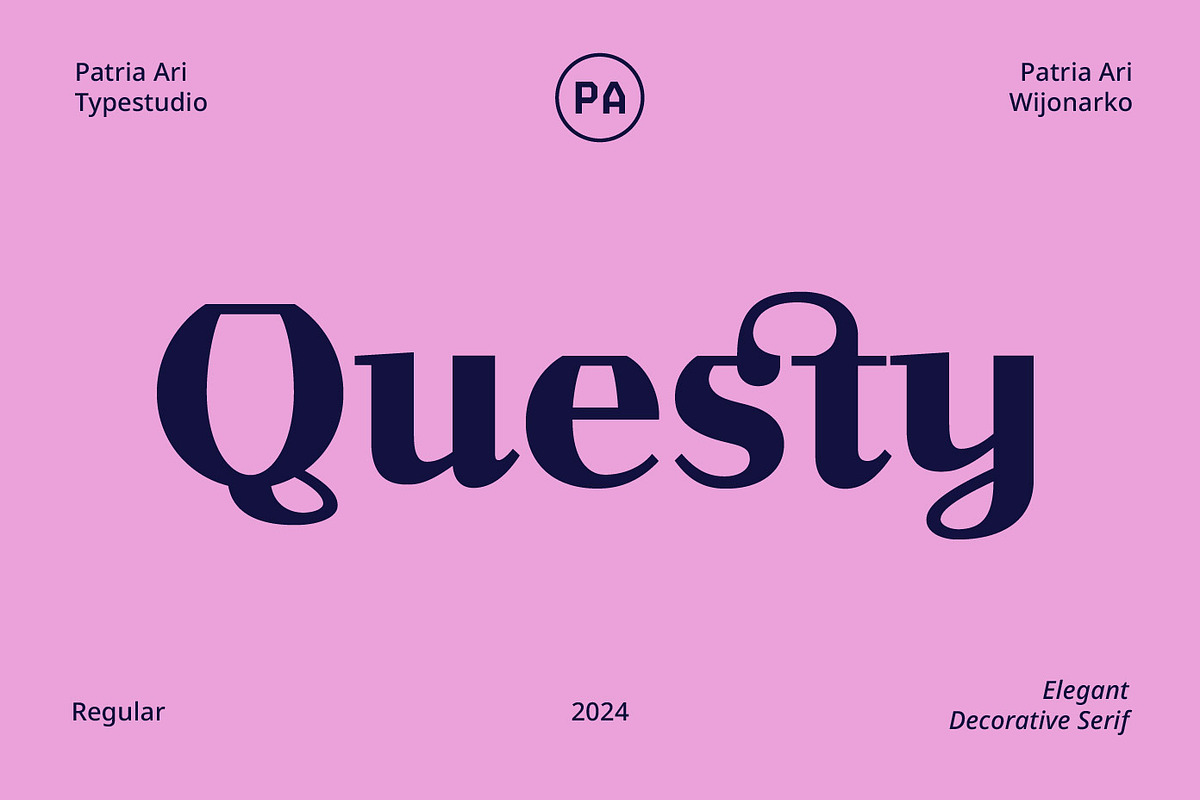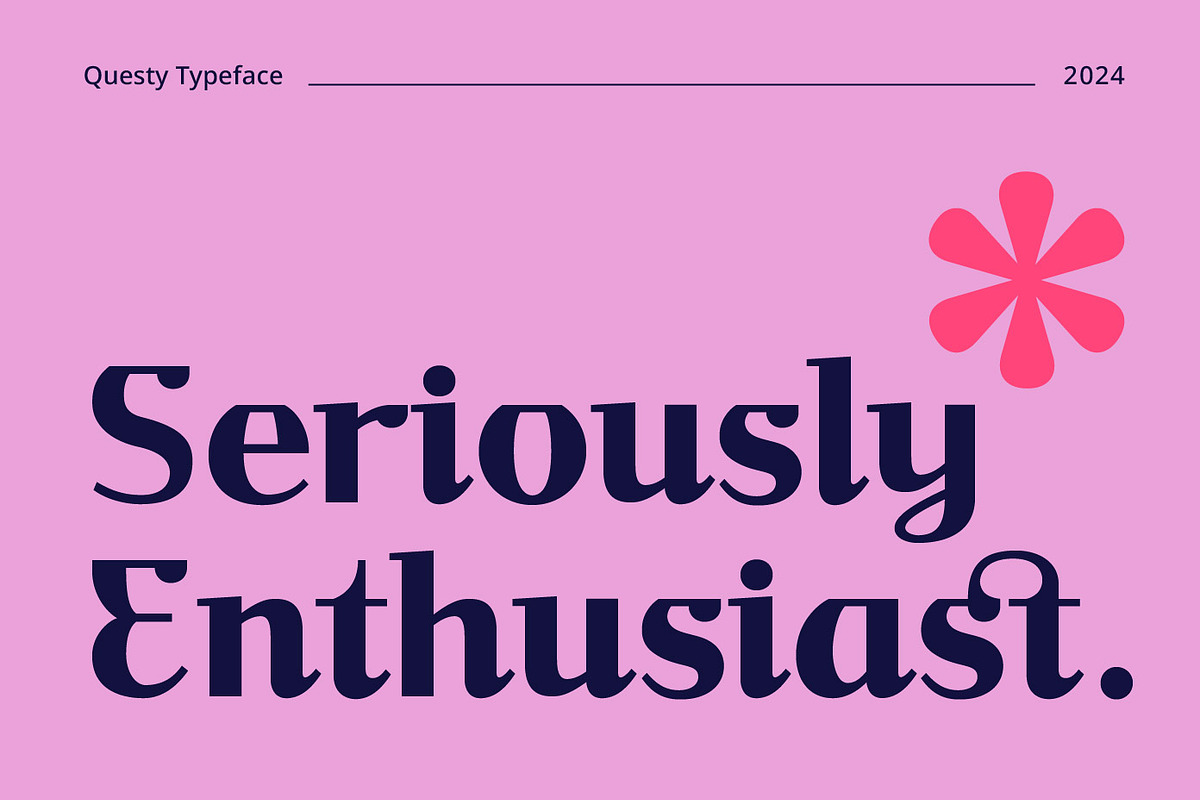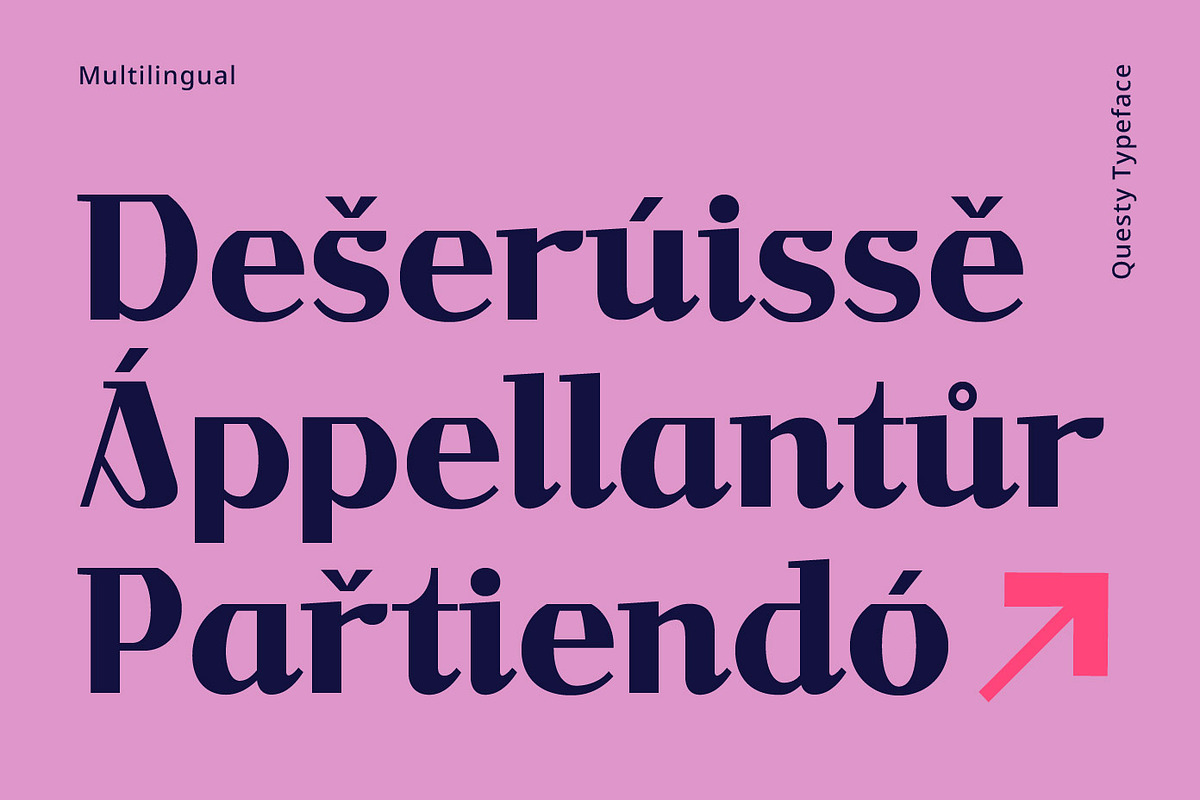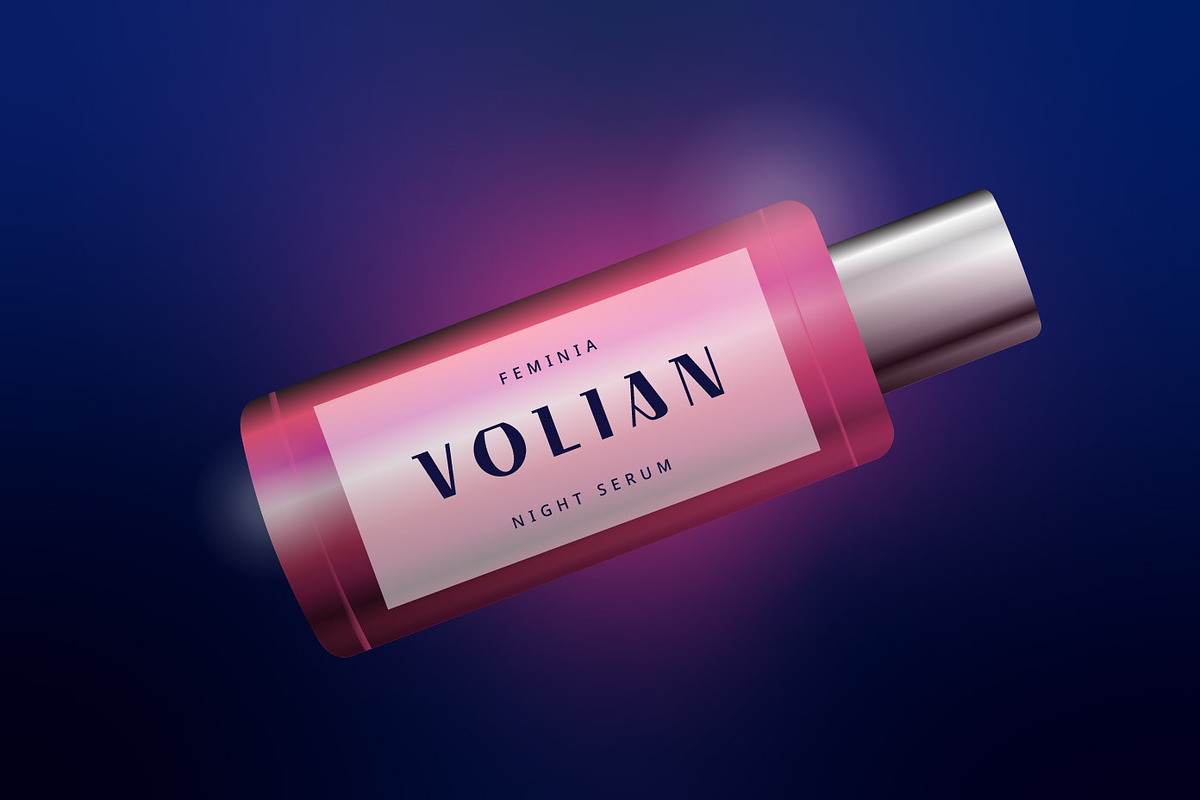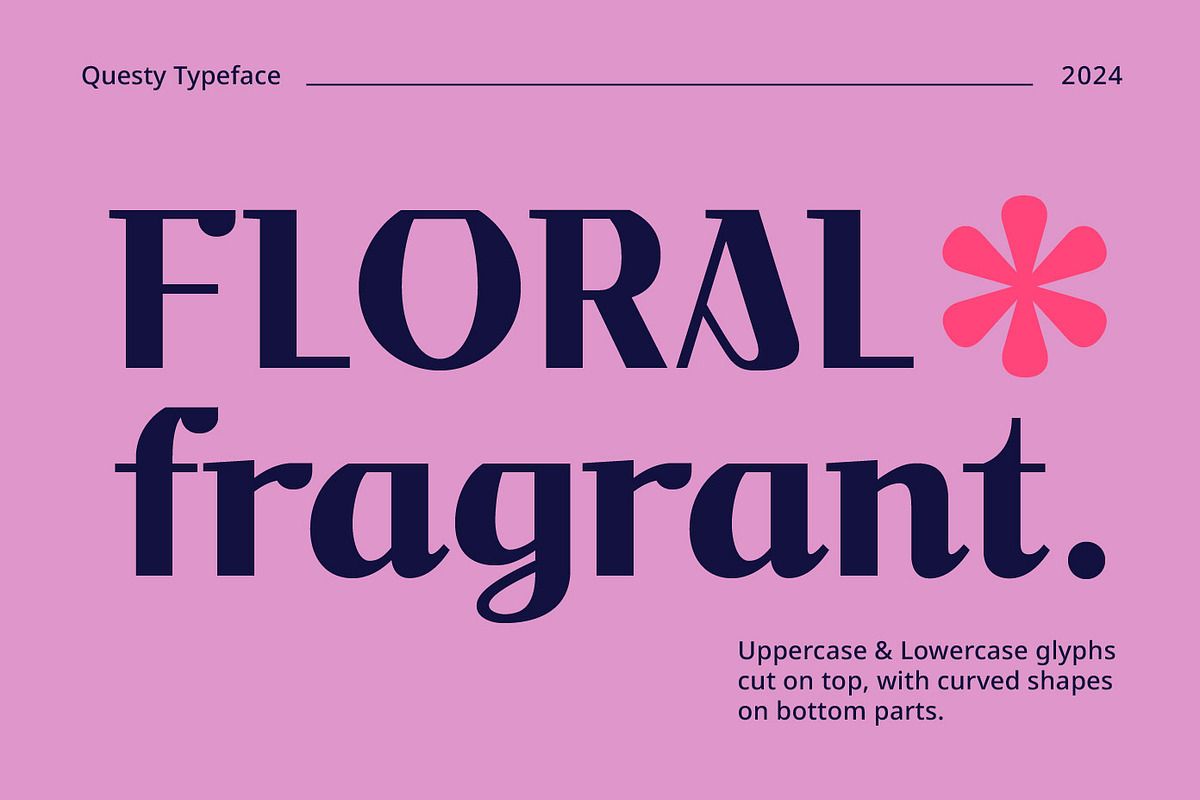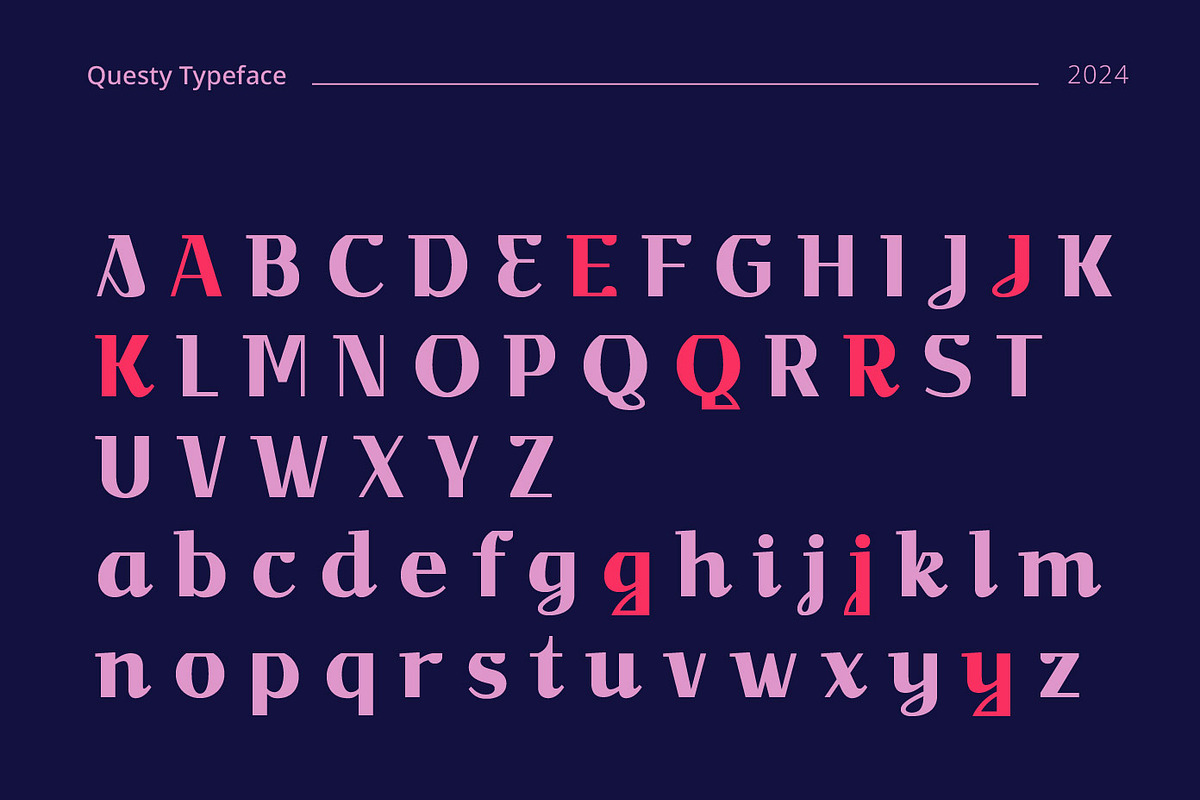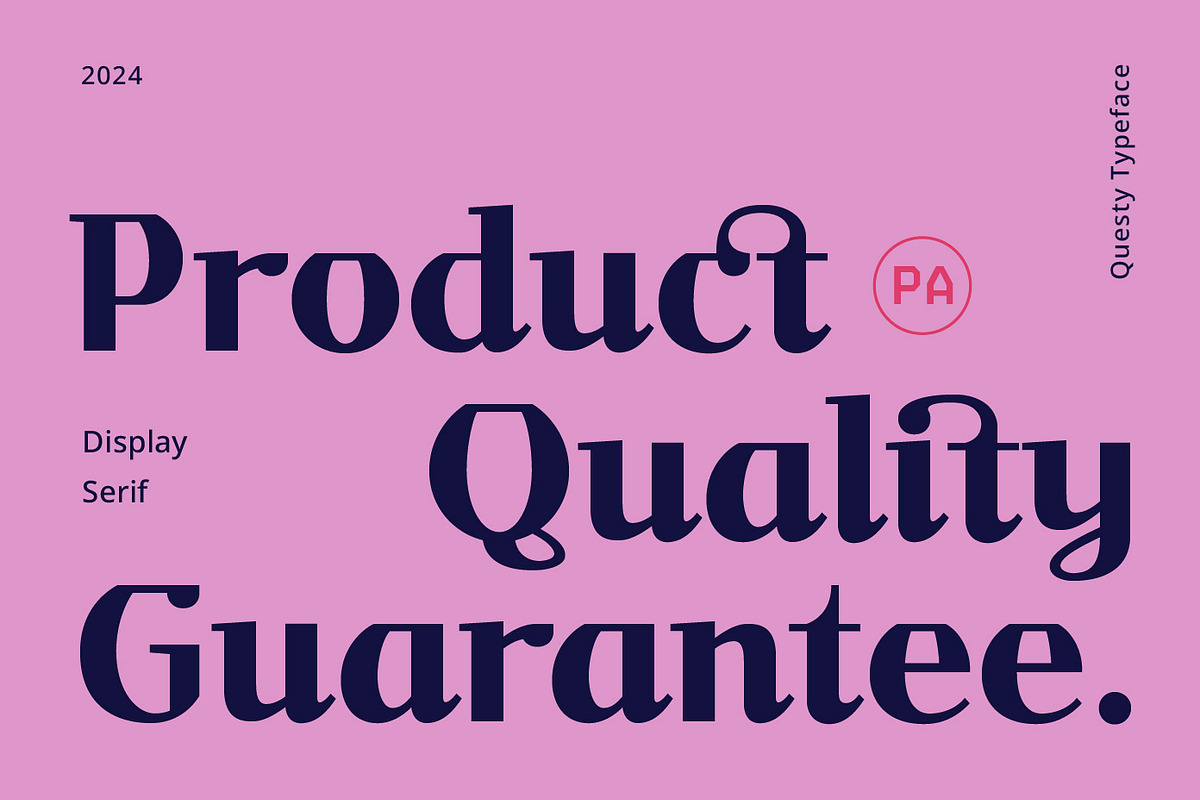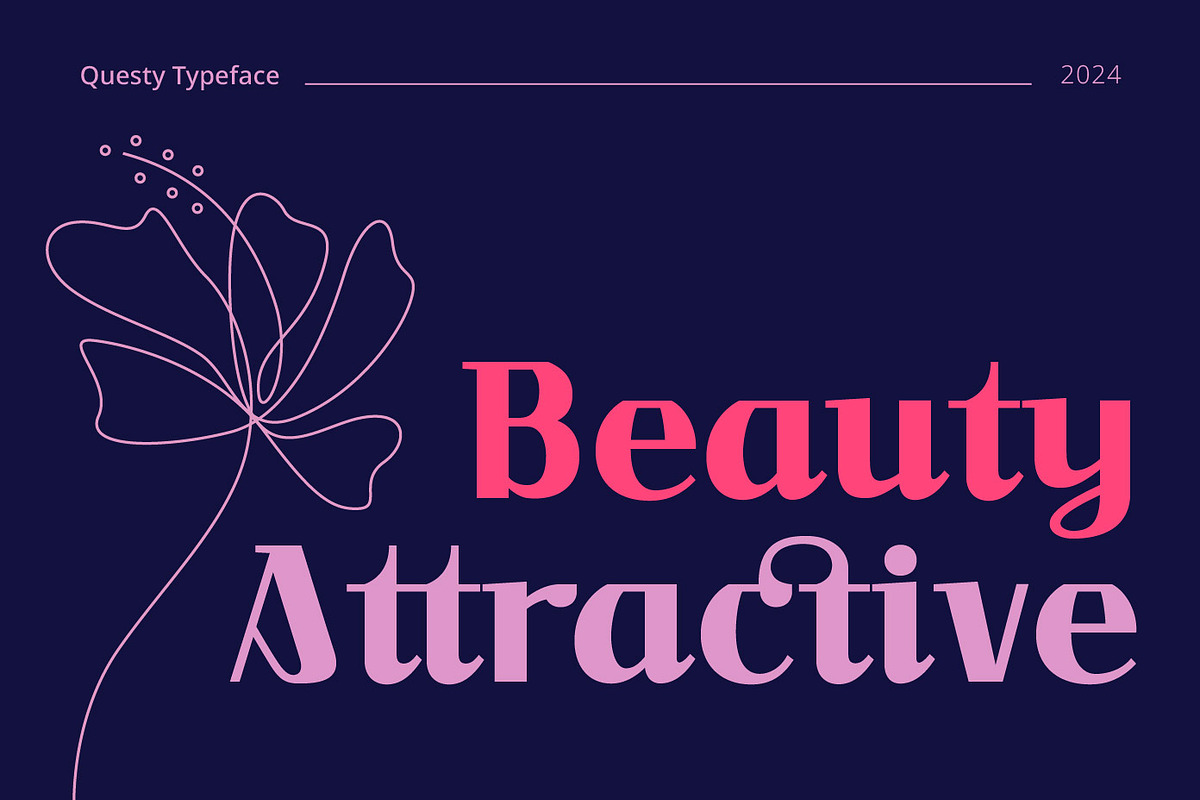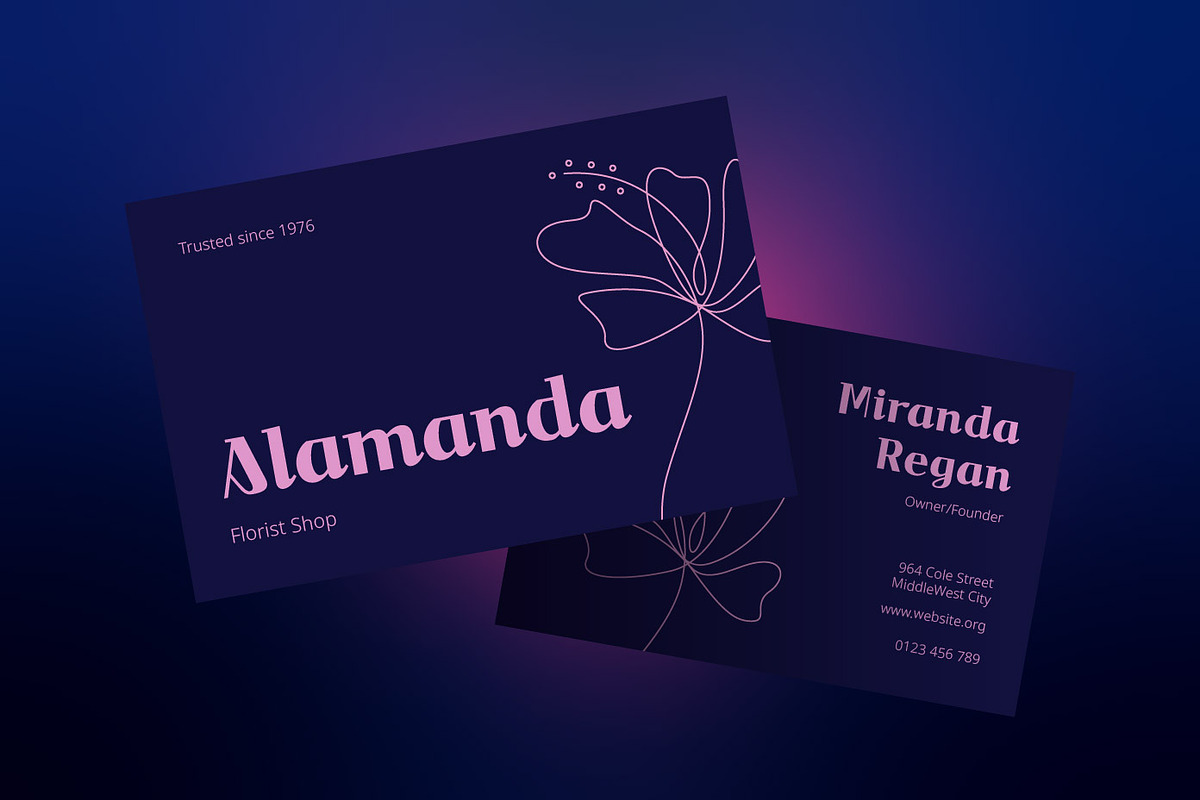
Questy Elegant Decorative Serif
Questy is a modern and elegant decorative serif with combination of curvy and edgy form. The upper form of glyphs chopped and the lower form/shape curved. This font suitable for projects related to wedding, crafts, branding, or aesthetical preview.